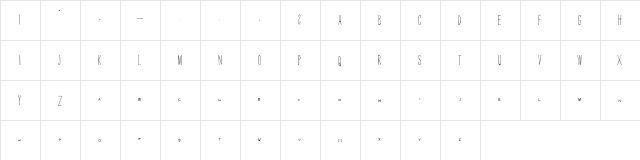
Men In Black Credits Regular
Design Context for Men In Black Credits Typeface
Men In Black Credits takes a measured approach to typography — its balanced proportions and neutral character make it a reliable workhorse for both digital and print work.